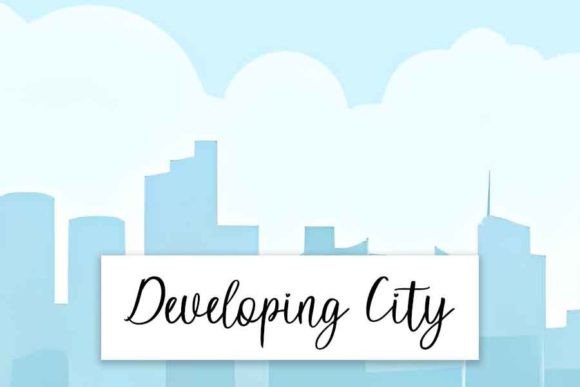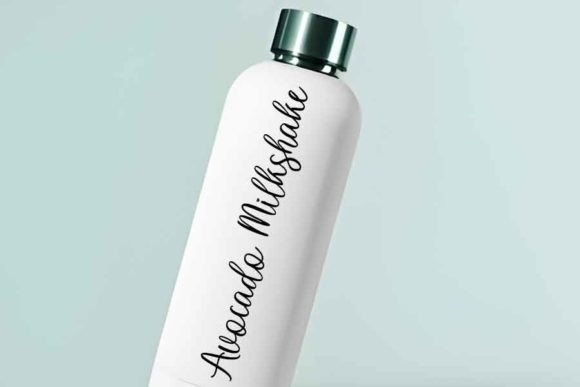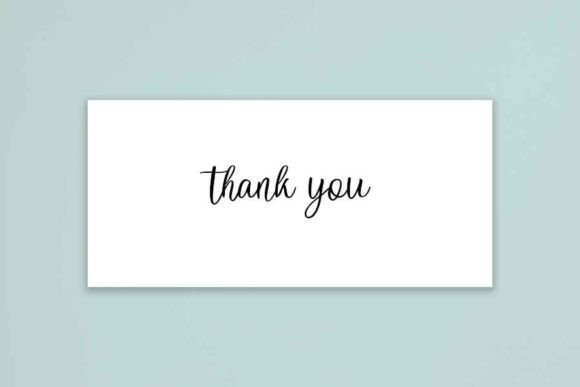
The Magical World of Blackberry Font: A Designer’s Delight
I’ll never forget the time I was working on a DIY project for a client’s wedding invitation. I had a clear vision of an elegant, sophisticated design, but something was missing – the perfect font. I scoured the internet, tried out countless fonts, but none seemed to fit the bill. That was until I stumbled upon Blackberry Font. ✨ It was like a breath of fresh air, a magical script font that added a touch of elegance to my design. In this article, I’ll share my experience with Blackberry Font, its features, and how to make the most of it in your creative projects.
An Honest Review of Blackberry Font
- ✨ Elegant and sophisticated design, perfect for high-end projects
- ✅ Highly versatile, suitable for a wide range of creative applications, from Instagram posts to calligraphy scripts
- 🎨 Beautifully crafted with attention to detail, making it a true piece of art
- 👍 Excellent for DIY projects, such as wedding invitations, greeting cards, and more
While Blackberry Font is an excellent choice for many projects, there are a few things to keep in mind: 🤔
- ⚠️ Limited availability of certain characters, which may require additional editing
- ⚠️ May not be suitable for very large or very small font sizes, as some details may get lost
The Story Behind Blackberry Font
Blackberry Font was designed by a team of talented typographers who aimed to create a font that exudes elegance and sophistication. Inspired by classic calligraphy and modern script fonts, Blackberry Font is a unique blend of traditional and contemporary design elements. The font’s creator wanted to craft a font that would be both versatile and beautiful, making it perfect for a wide range of creative projects.
| Font Name | Blackbery Font |
| Author | Leontyn Art |
Q: What is Blackberry Font?
A: Blackberry Font is a magical script font carefully created with a touch of elegance, perfect for creative projects, DIY crafts, and social media posts.
Q: Can I use Blackberry Font for my wedding invitation?
A: Absolutely! Blackberry Font is an excellent choice for wedding invitations, thanks to its elegant and sophisticated design.
Q: Can I use Blackberry Font for my Instagram posts?
A: Yes, Blackberry Font is perfect for Instagram posts, adding a touch of elegance and sophistication to your social media content.